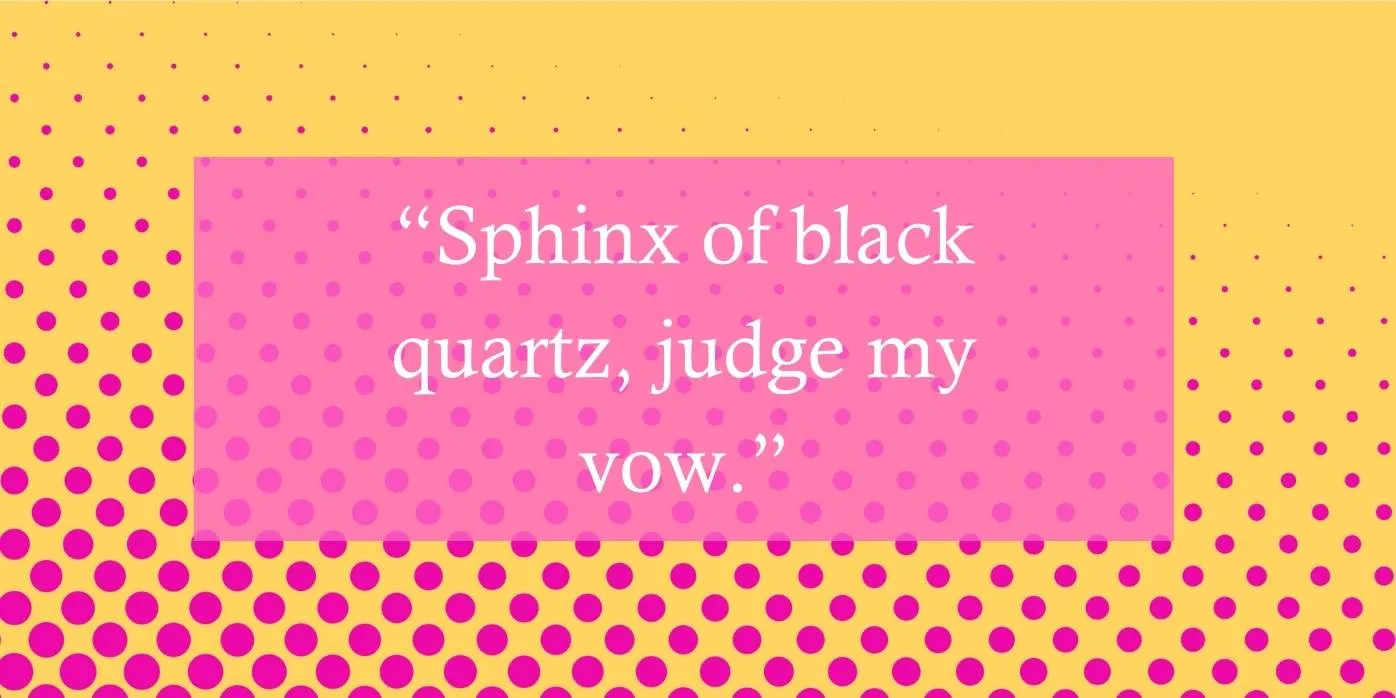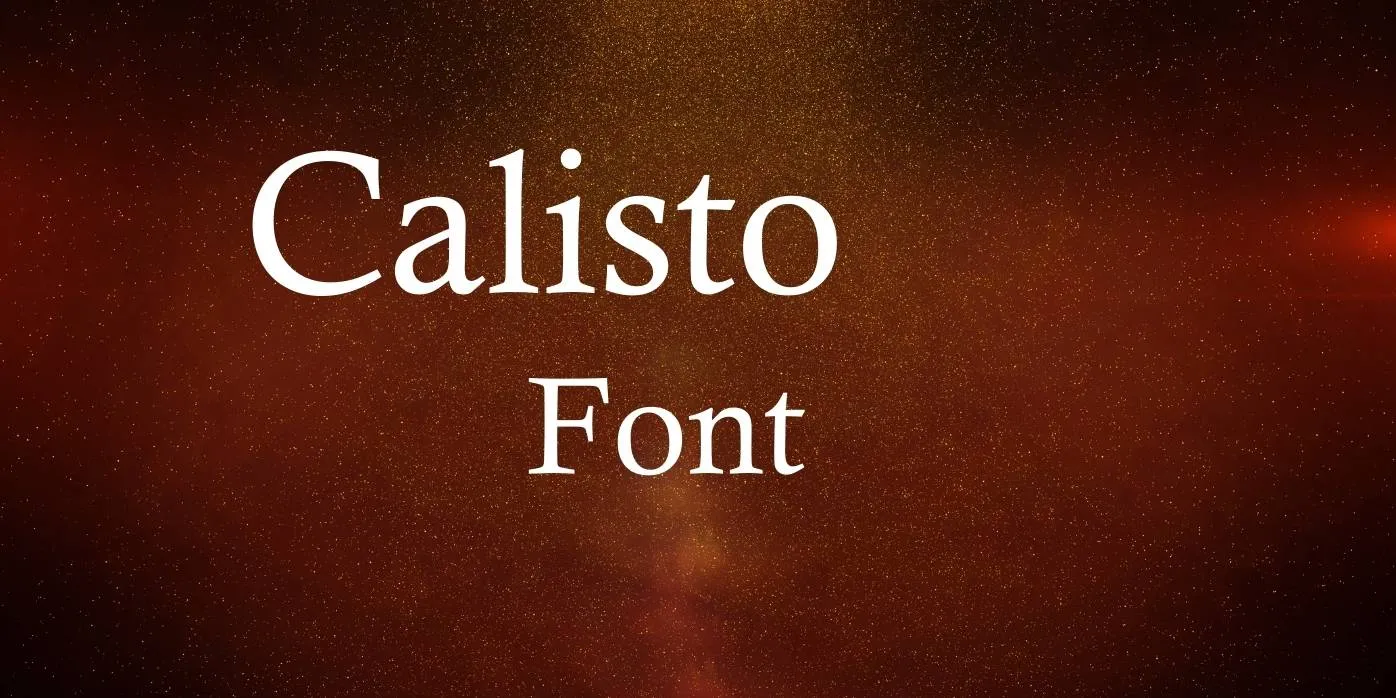
Calisto MT Font
Calisto MT Font was developed by Ron Carpenter in Monotype Foundry. This staggering typeface belongs to the Serif typeface. This amazing font has come up with six different styles including   Bold, Black, Light, and others. This awesome Font has been designed considering both the screen and print requirements.
This incredible font is widely used in various fields.  This typeface is best for Web pages. Its copy and paste function is best for different text designs. This marvelous font has a well-defined structure that makes it perfect for creating headlines and titles. The light style of this font is perfect for use in documents, while the bold style is great for titles and headings.
This typeface has clean textures. It is very popular because of its stylish appearance and well-defined letterforms. Nirvana Font is similar to this typeface. This font has been created with a perfect blend of readability and style.
It has a modern touch that gives it an edge over other fonts. This typeface is perfect for all kinds of text styles including formal as well as informal writing. You also use it tool generator for different graphic designs.